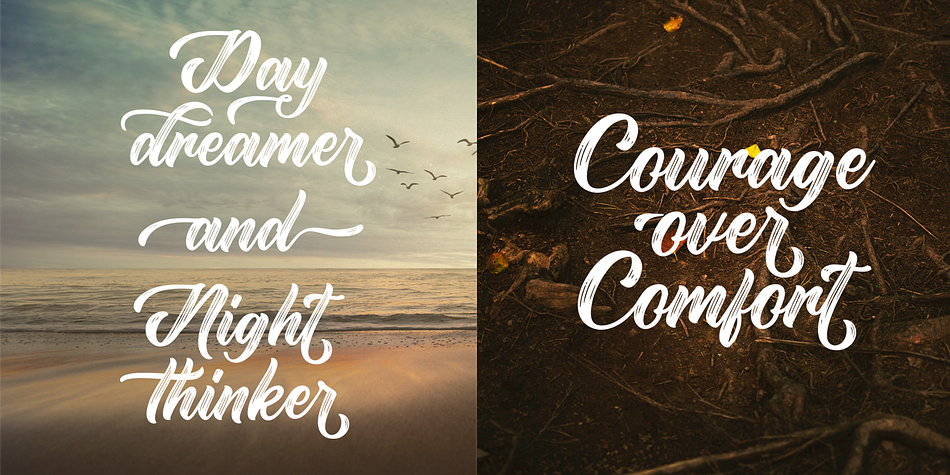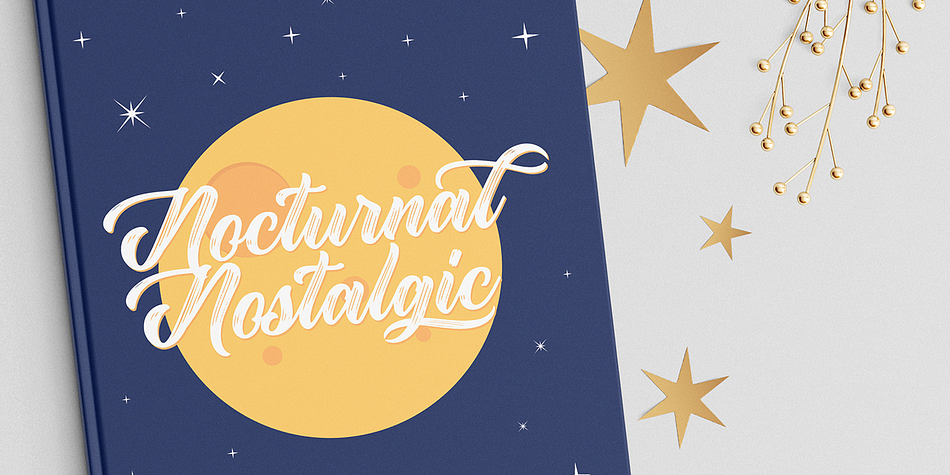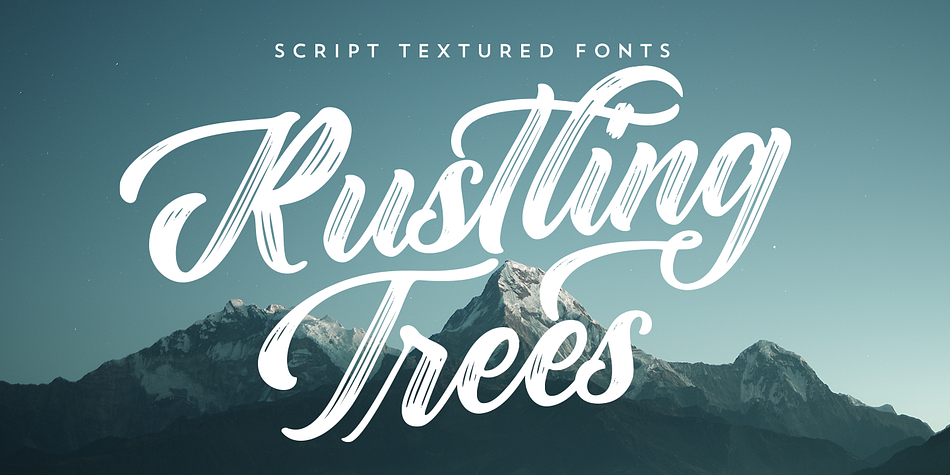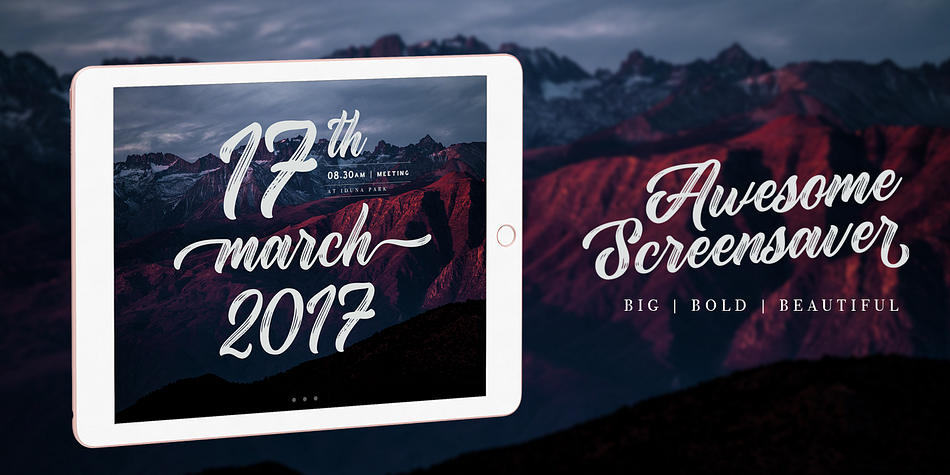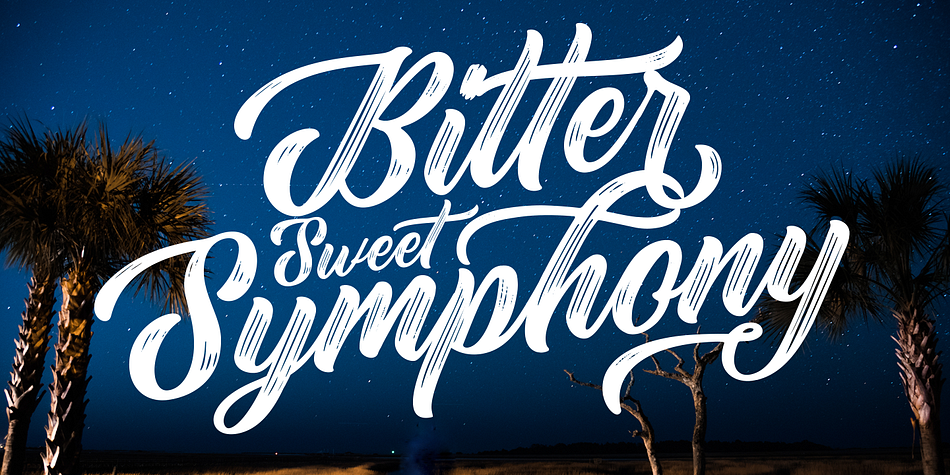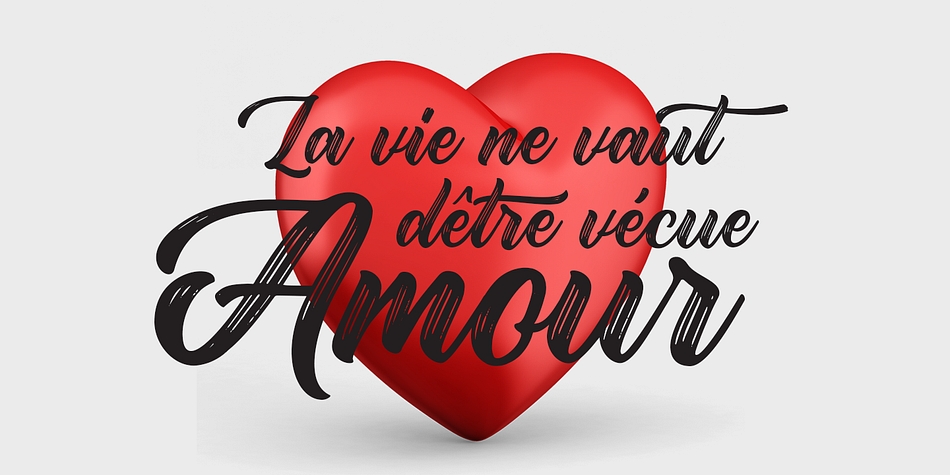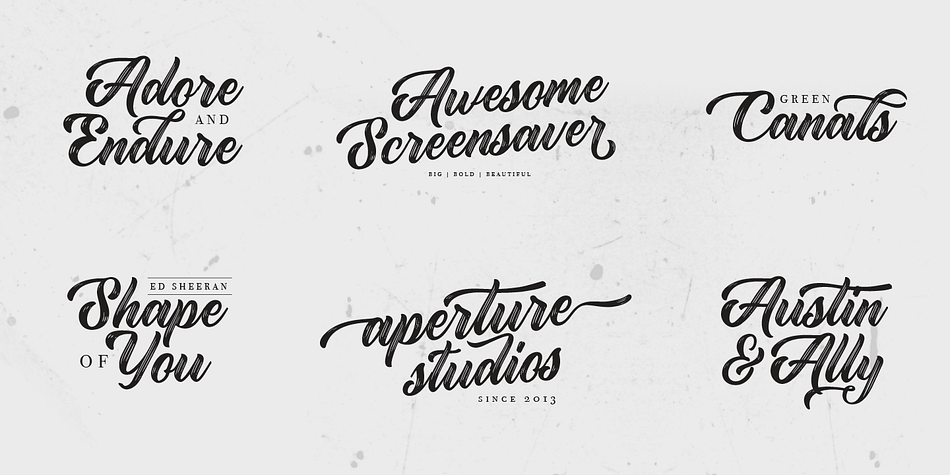
Rustling Trees
Designed by Adam Fathony, Rustling Trees is a script font family published by AF Studio.
Rustling Trees - Script Textured Fonts
Brand new stylish textured fonts ! In collaborating with Albion Room. Fresh from the oven as inspired to create easy digital lettering for you.
Flowing texture makes this fonts has a unique characteristic, also give you alternate characters lowercase and uppercase, alternate for the initial and terminal forms. It will be great for Logotypes, Posters, Digital Lettering Arts, Clean design, Branding Design, Sign, etc.
Features
Stylistic Alternates (up to 10 style in some letters)
Initial & Terminal (also comes with alternate initial and terminal glyphs)
Refined All caps (No more tail or swash when type in all caps)